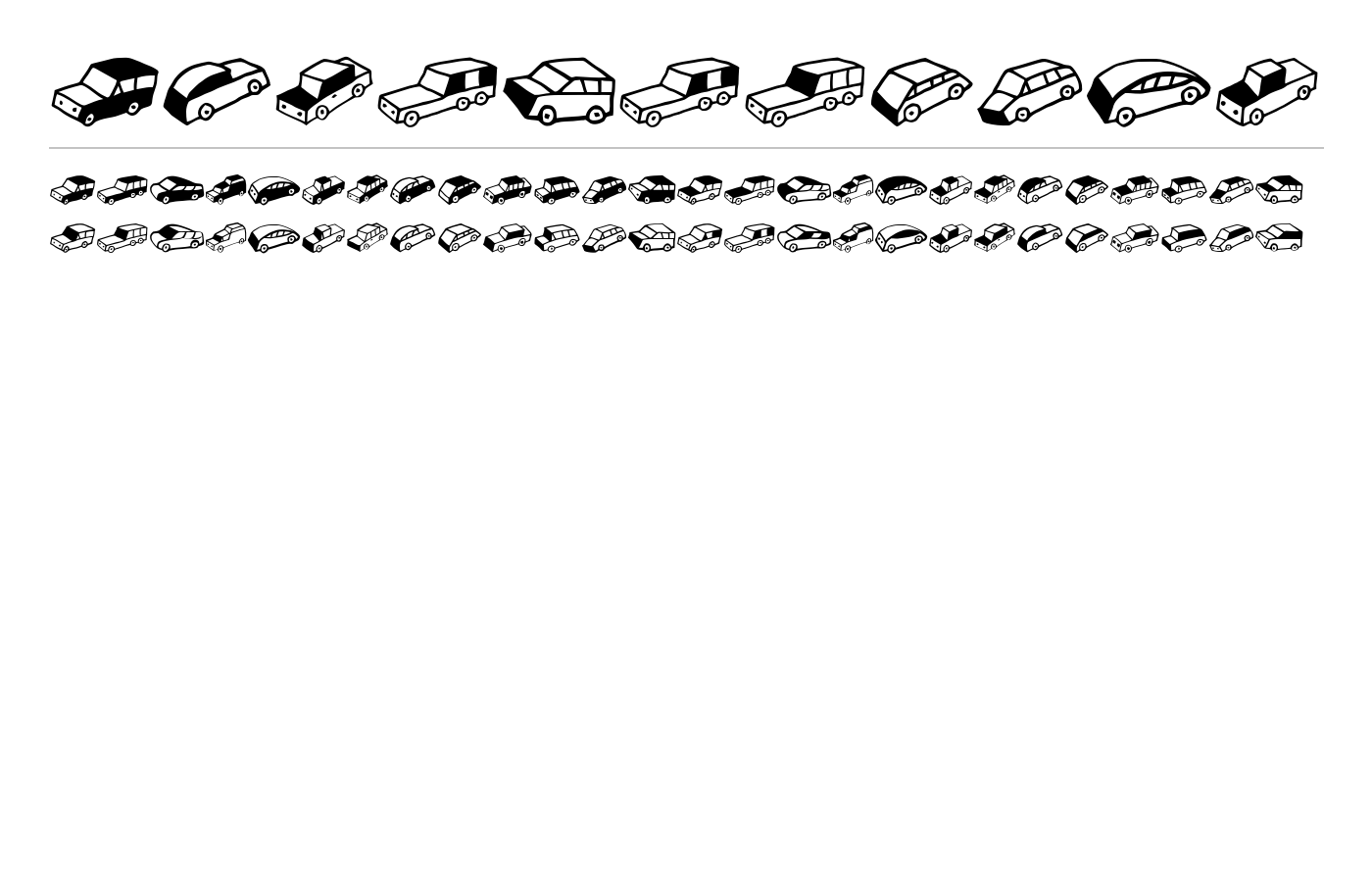
Automobiles Font is a playful and distinctive display typeface featuring various stylized car illustrations as its characters. This fun and whimsical font brings a lively and retro touch to any design, making it perfect for automotive-themed branding, children's projects, or creative packaging where a unique, eye-catching look is desired. Its bold, graphic style works best in headlines or logos rather than body text, adding personality and charm wherever used.
Automobiles Font
About Automobiles Font
| Font family | Automobiles Font |